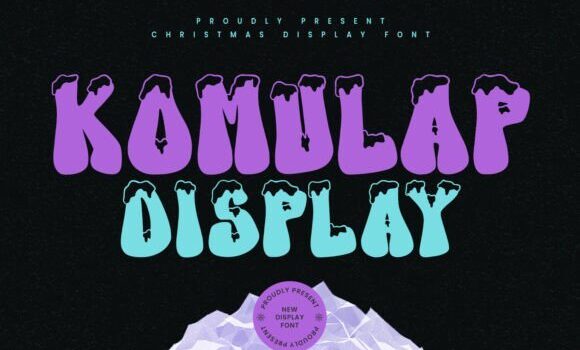
komulap
Komulap Font – Free Download Introduction to Komulap Font Komulap is a festive decorative font. 📸 Preview Gallery 6 images 📌 Product Name Komulap Font 👤 Author Maulana Creative 📂 Category Explore ⬇️ Download Komulap Font FREE Free Download •